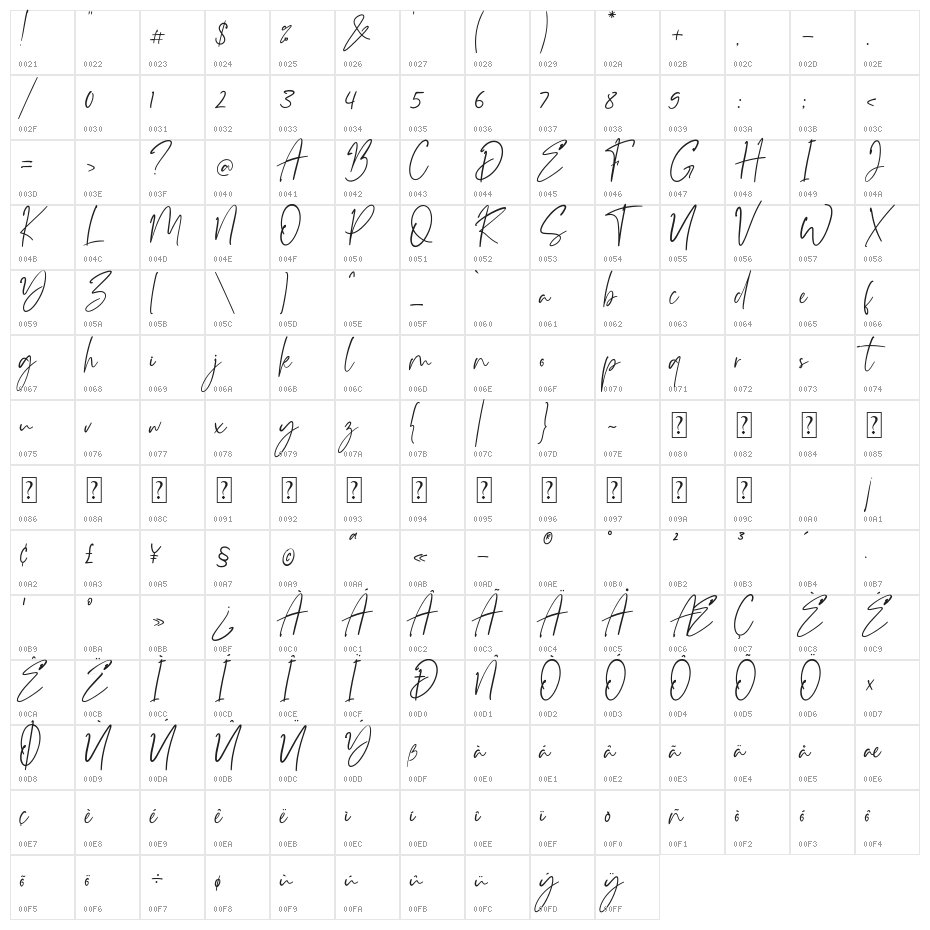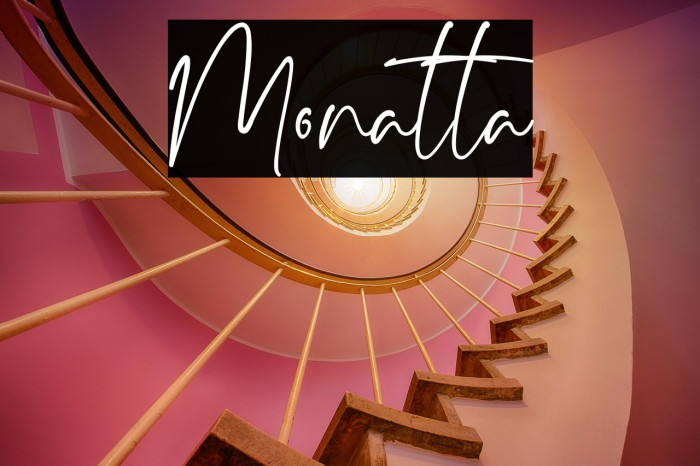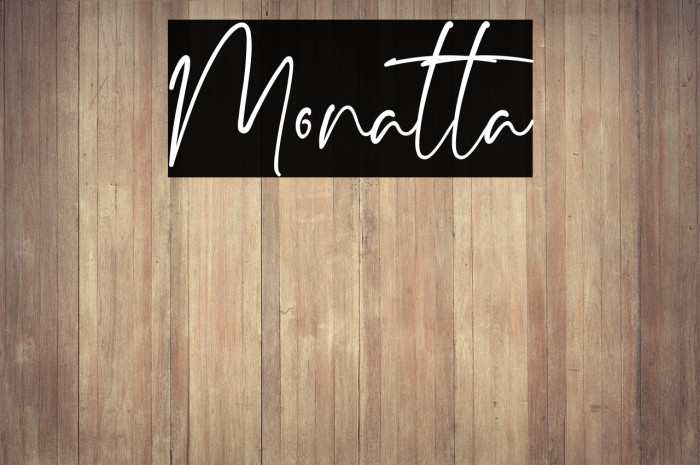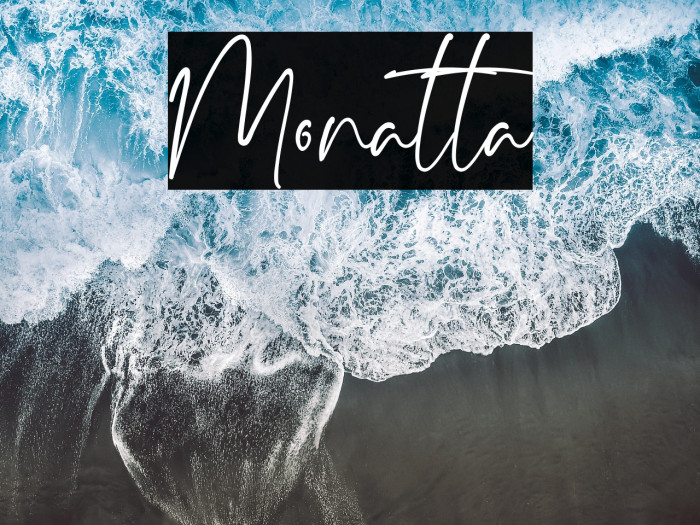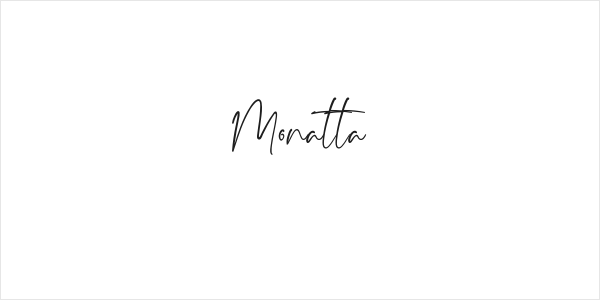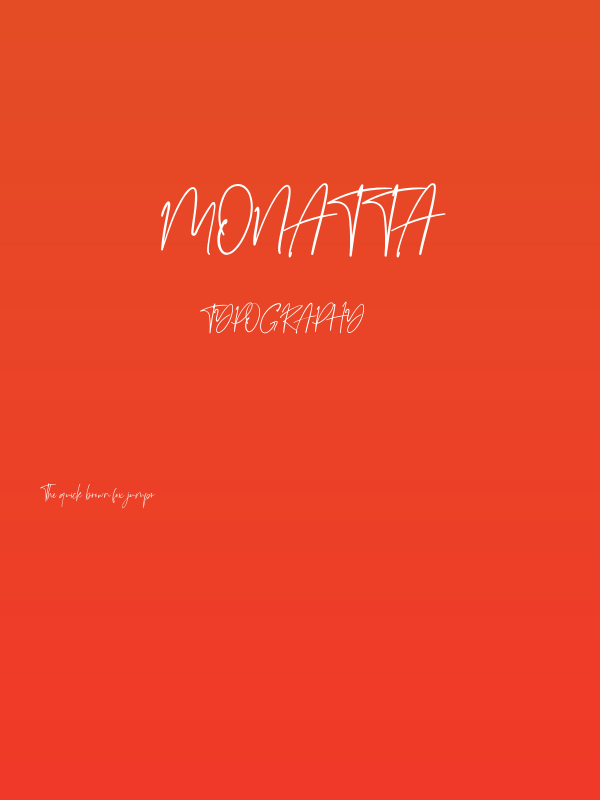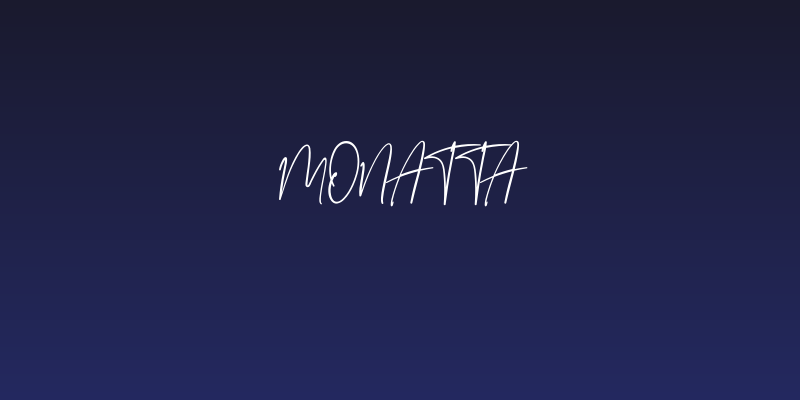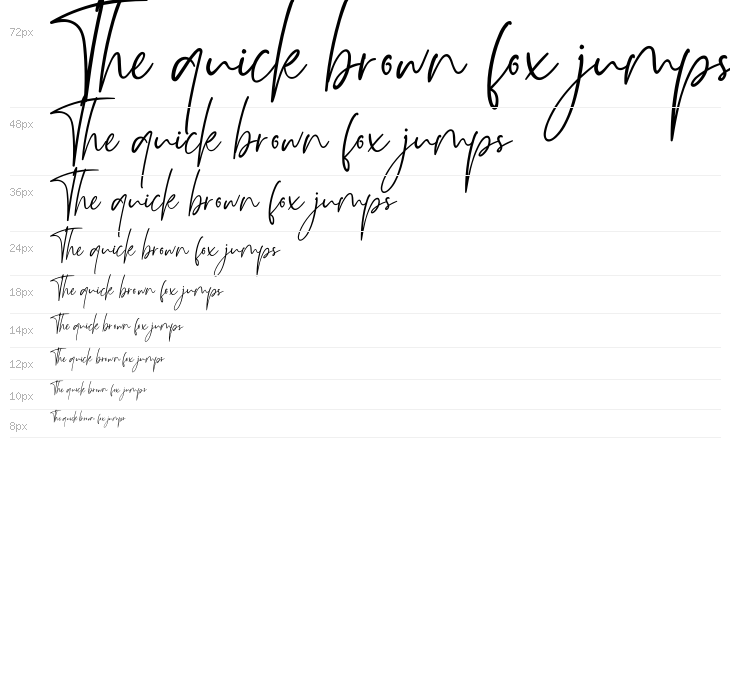
Monatta Font
Monatta Description
This font features a flowing, handwritten style with a modern and elegant touch. The letters are connected, giving it a cursive appearance, yet each character maintains its distinct form. The uppercase letters are tall and slightly slanted, while the lowercase letters are more compact and rounded. The numerals and special characters follow the same fluid style, ensuring consistency throughout. The overall look is sophisticated and artistic, making it suitable for creative and expressive designs.
| Proposed Projects | Ideal for wedding invitations, personal branding, greeting cards, and artistic projects. |